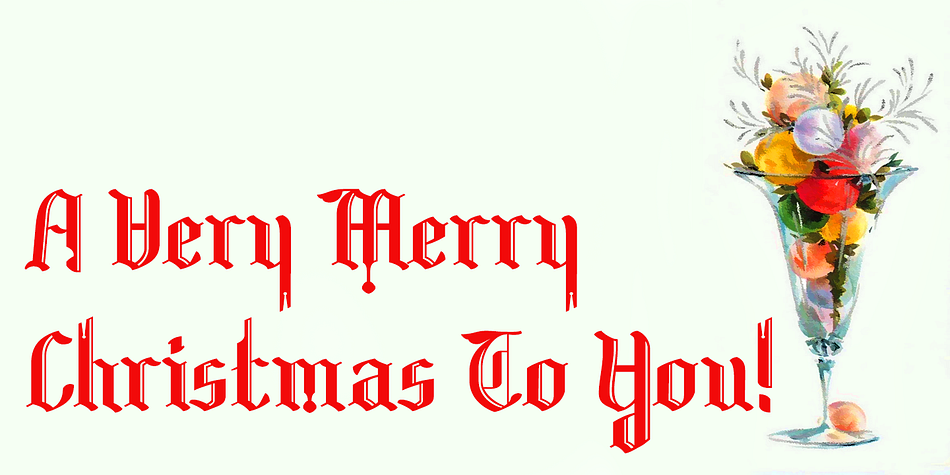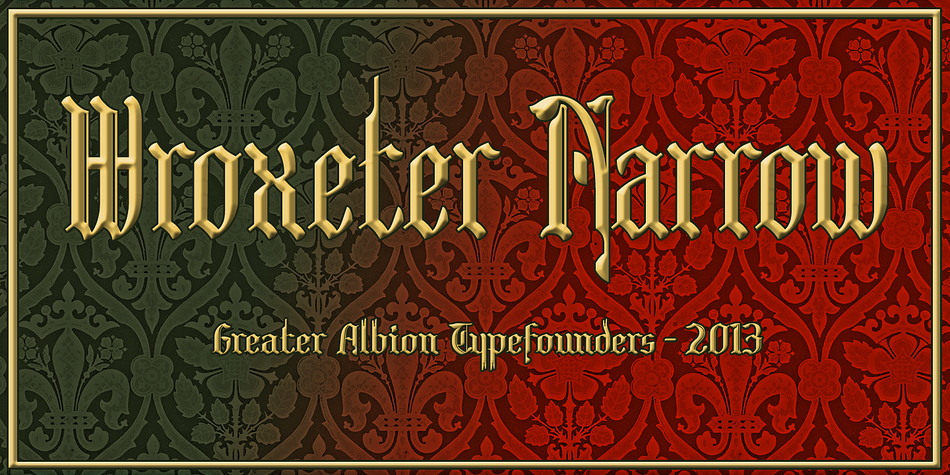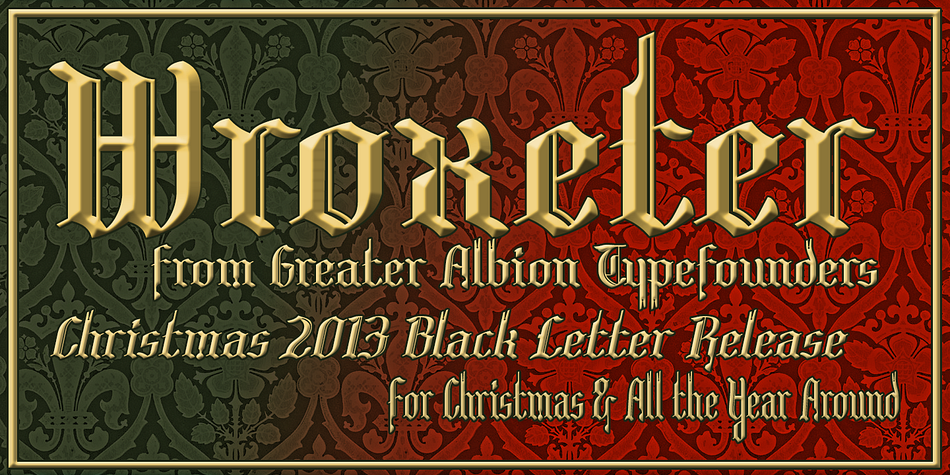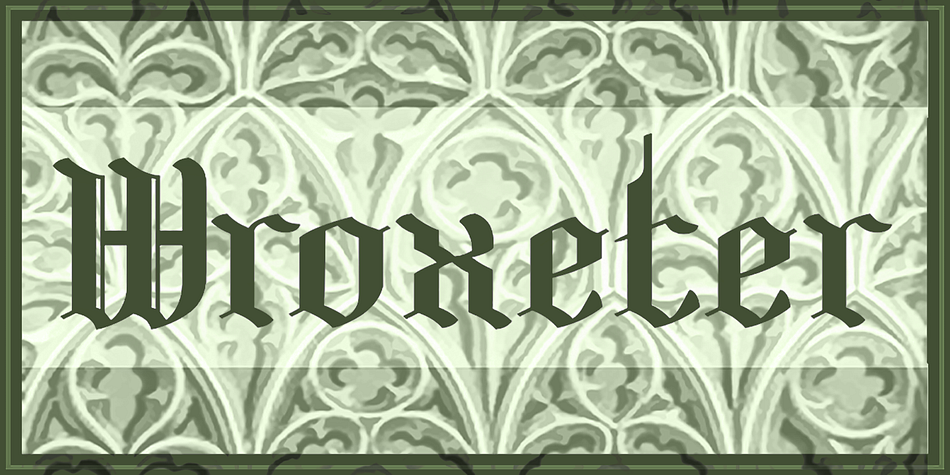
Wroxeter
Wroxeter is a blackletter font family. This typeface has four styles and was published by Greater Albion Typefounders.
Wroxeter is Greater Albion Typefounders’ customary Black Letter release for Christmas 2013.  It’s a typeface family for all times of year though, a good clear traditional black letter re-creation offered in a family of four typeface:- regular, wrought (a hand-tooled look a la Mr F Goudy), oblique and narrow forms.  The tradition of typefounders’ black letter revivals which don’t over-burden themselves with historical precedent continues in this highly refined and polished family.
Foundry Greater Albion Typefounders
Style Blackletter